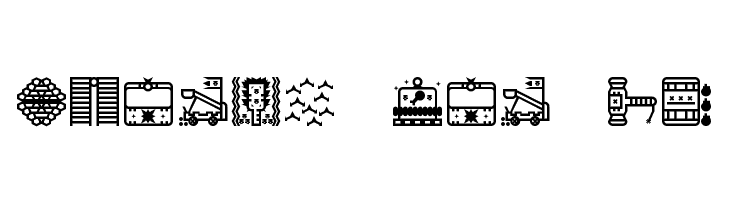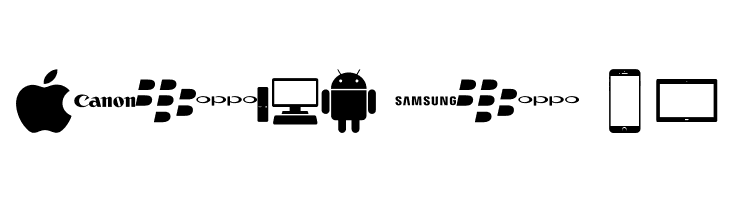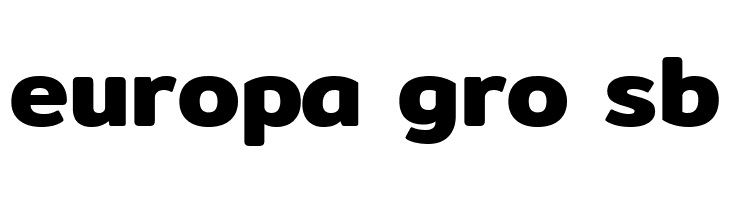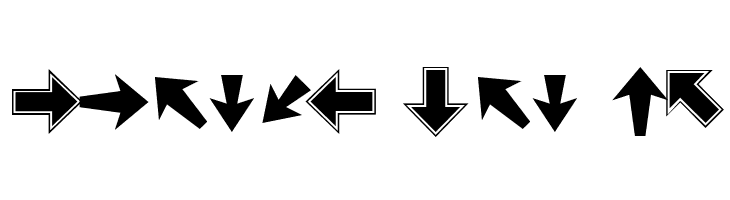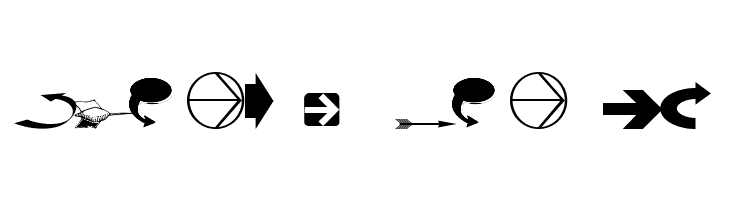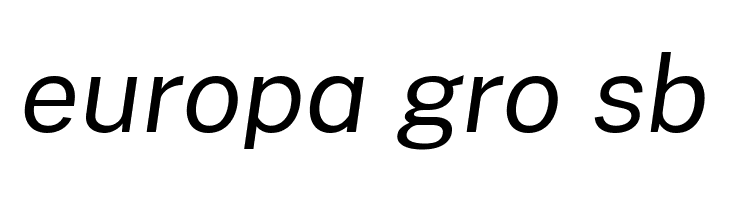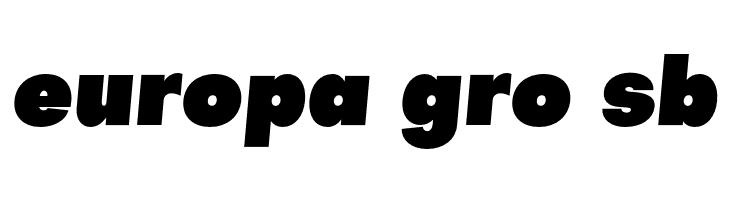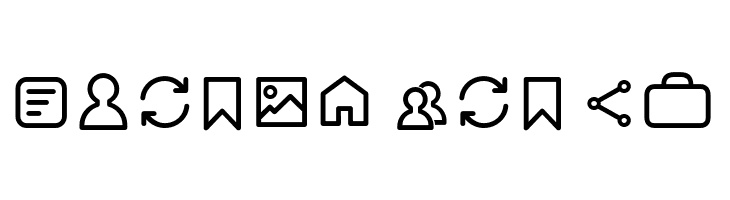
A bold, detailed set of medieval and fantasy-themed icons.
A modern, semi-bold sans-serif font with rounded edges and excellent readability.
A decorative font featuring diverse arrow designs in various styles and directions.
A bold, rounded dingbat font with diverse pictograms and playful shapes.
A decorative display font made entirely of diverse arrow designs.
A modern sans-serif font with an italic slant, offering clarity and versatility.
A bold, slanted font with a dynamic and modern style.
A modern, minimalist icon set with clean lines and consistent stroke weight.